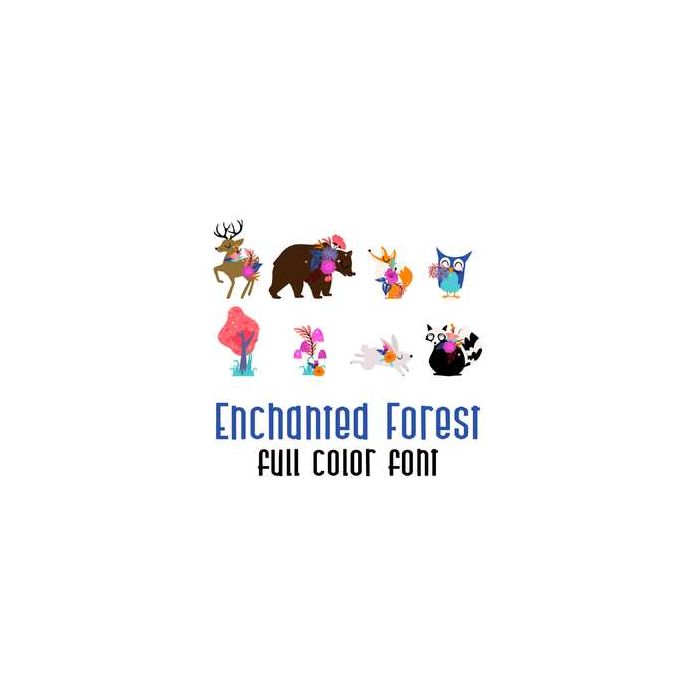
This adorable full color doodlebat font features beautiful magical forest animals, creatures and fairies. Perfect for cards, crafts, gifts, decor, scrap book pages, planner stickers and more!